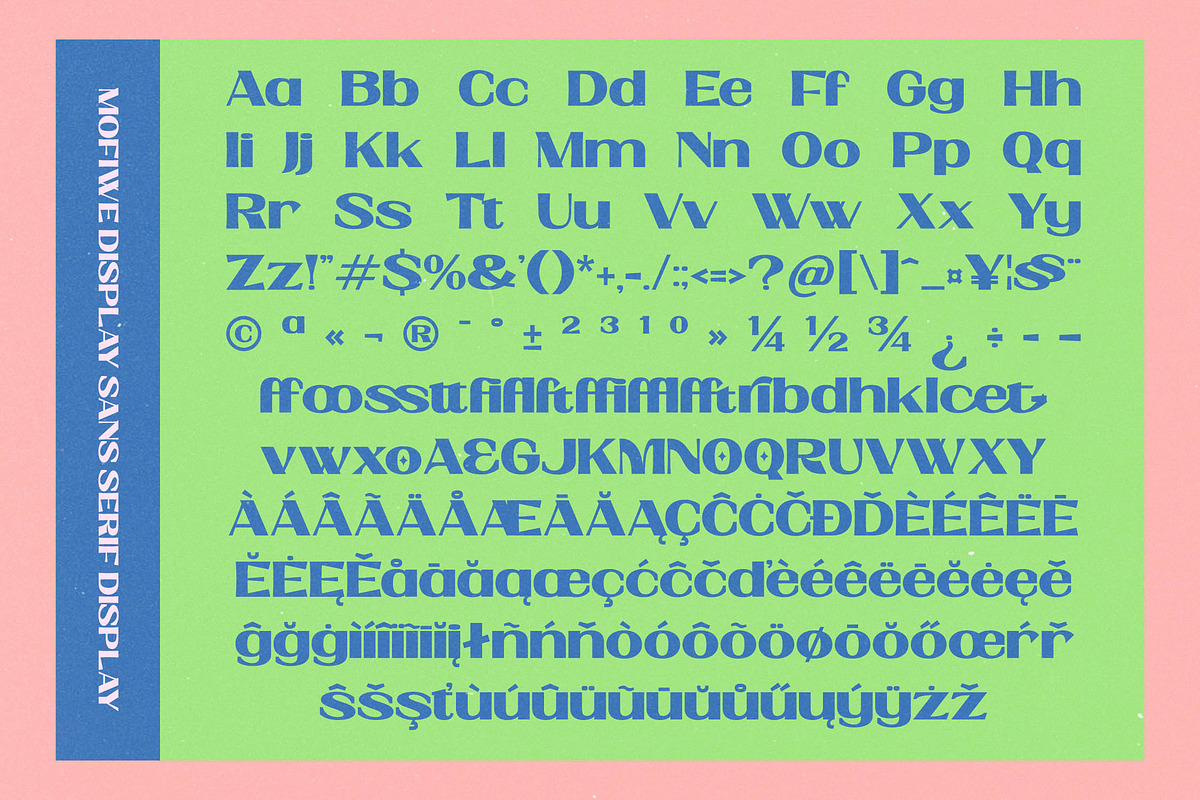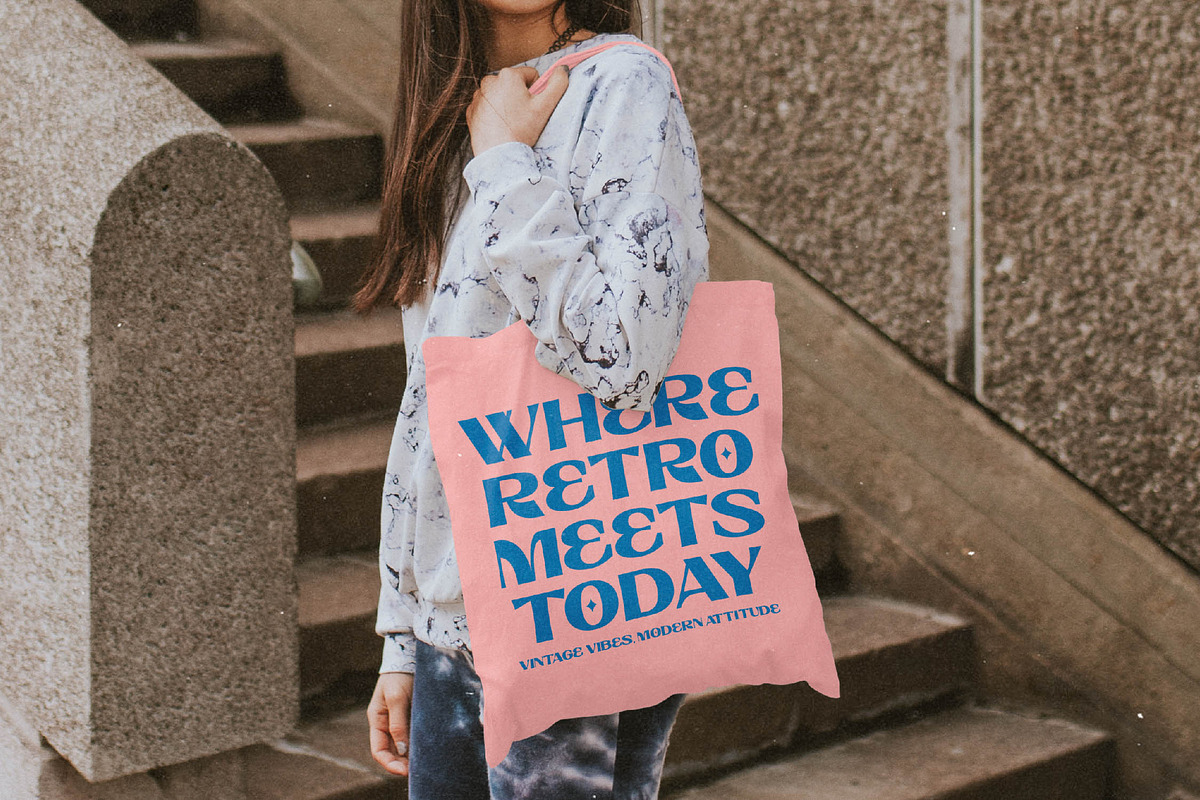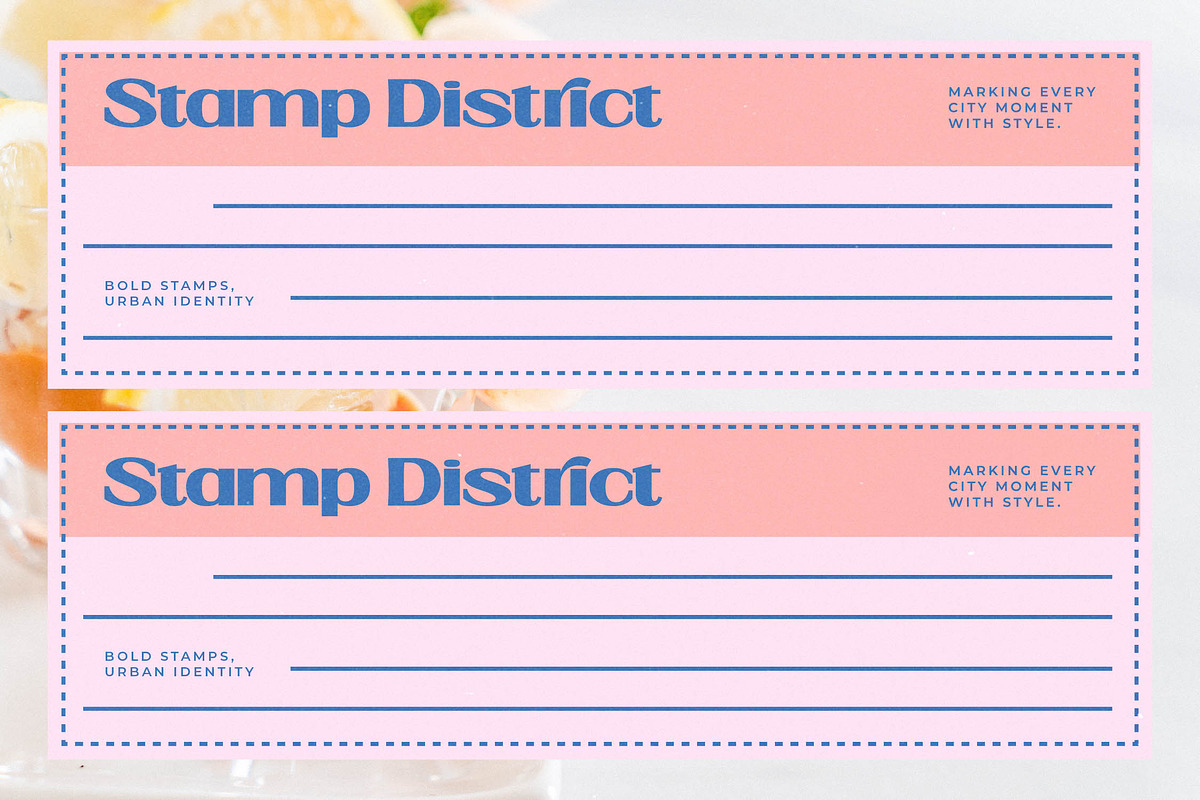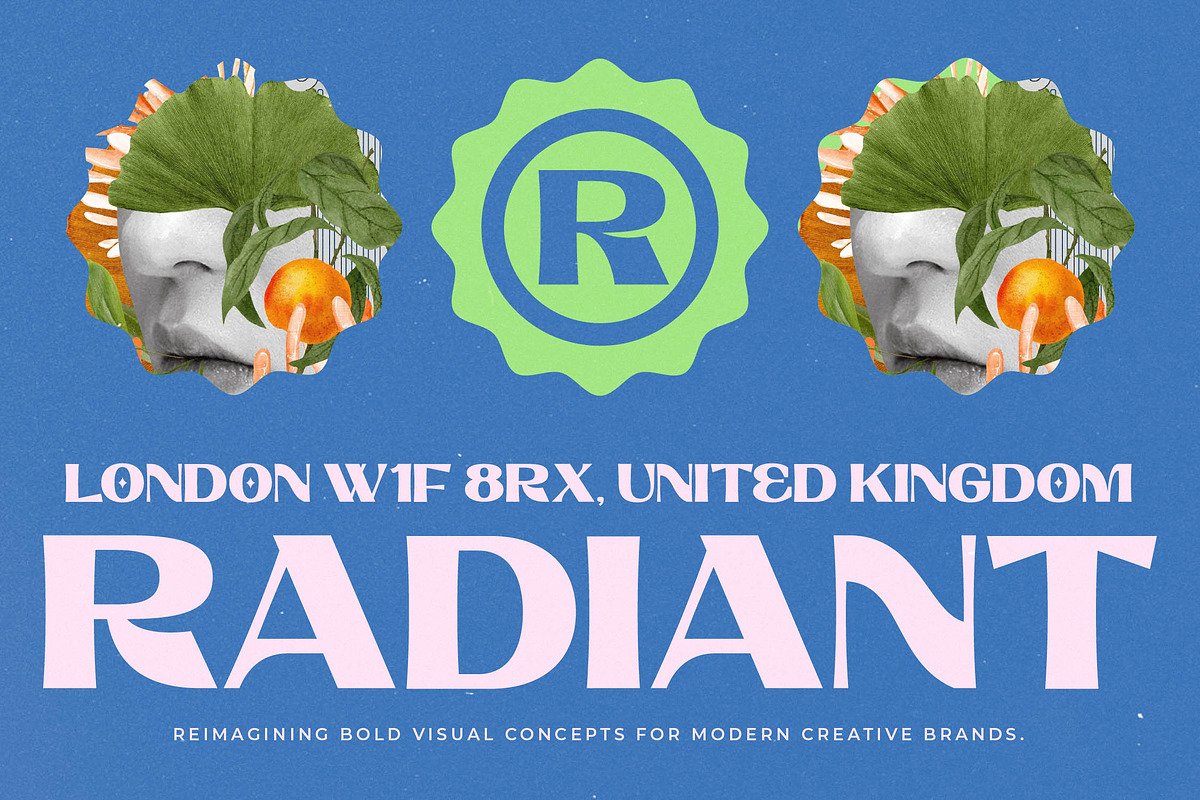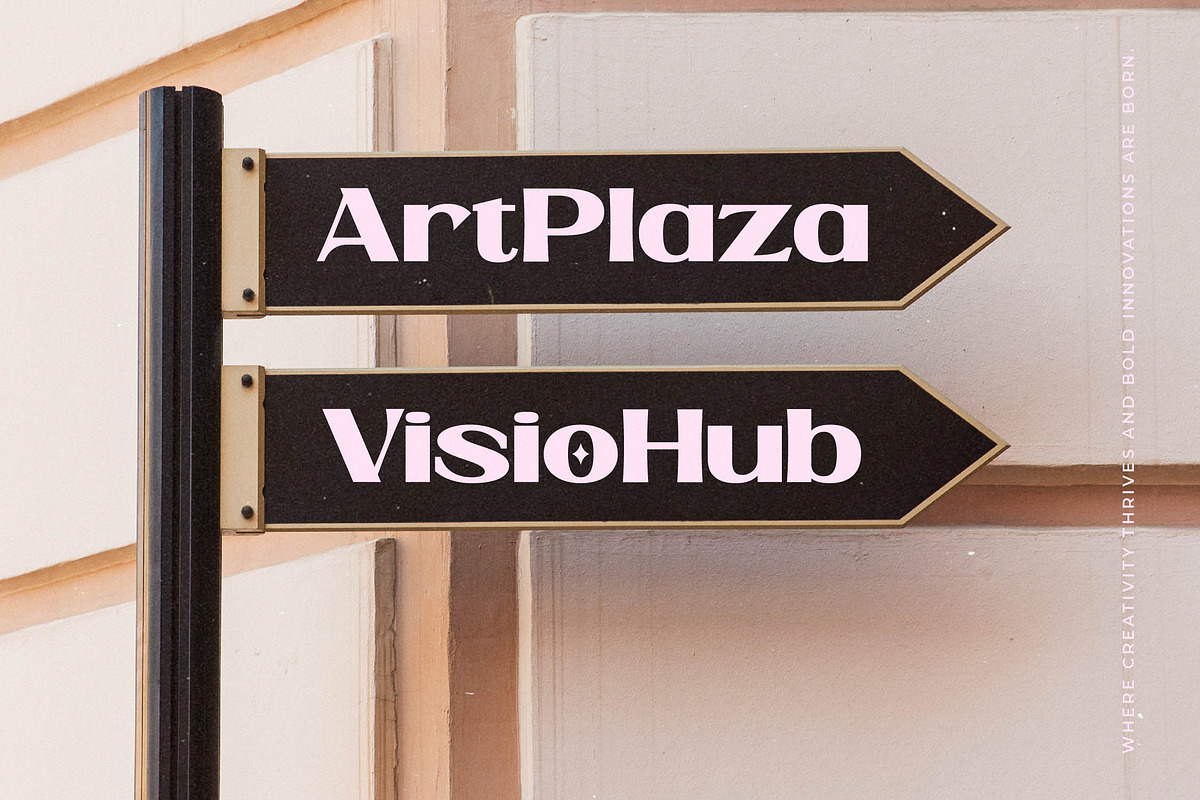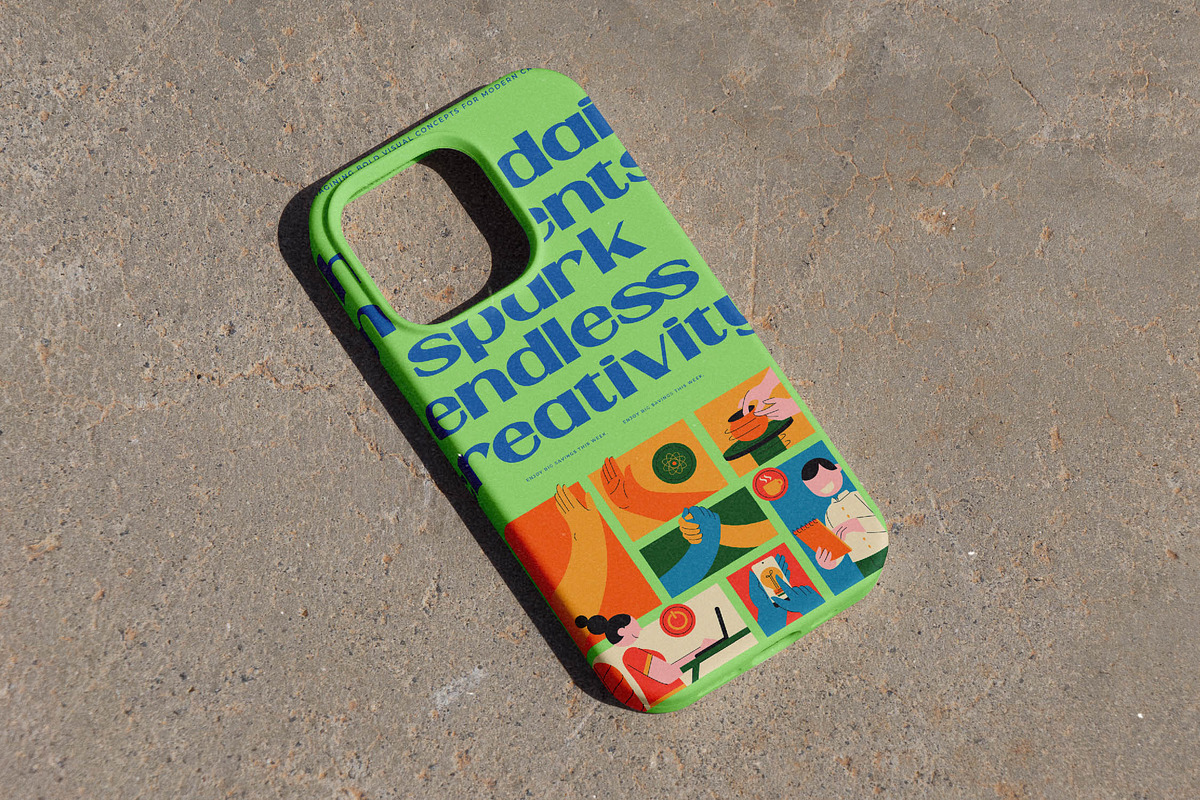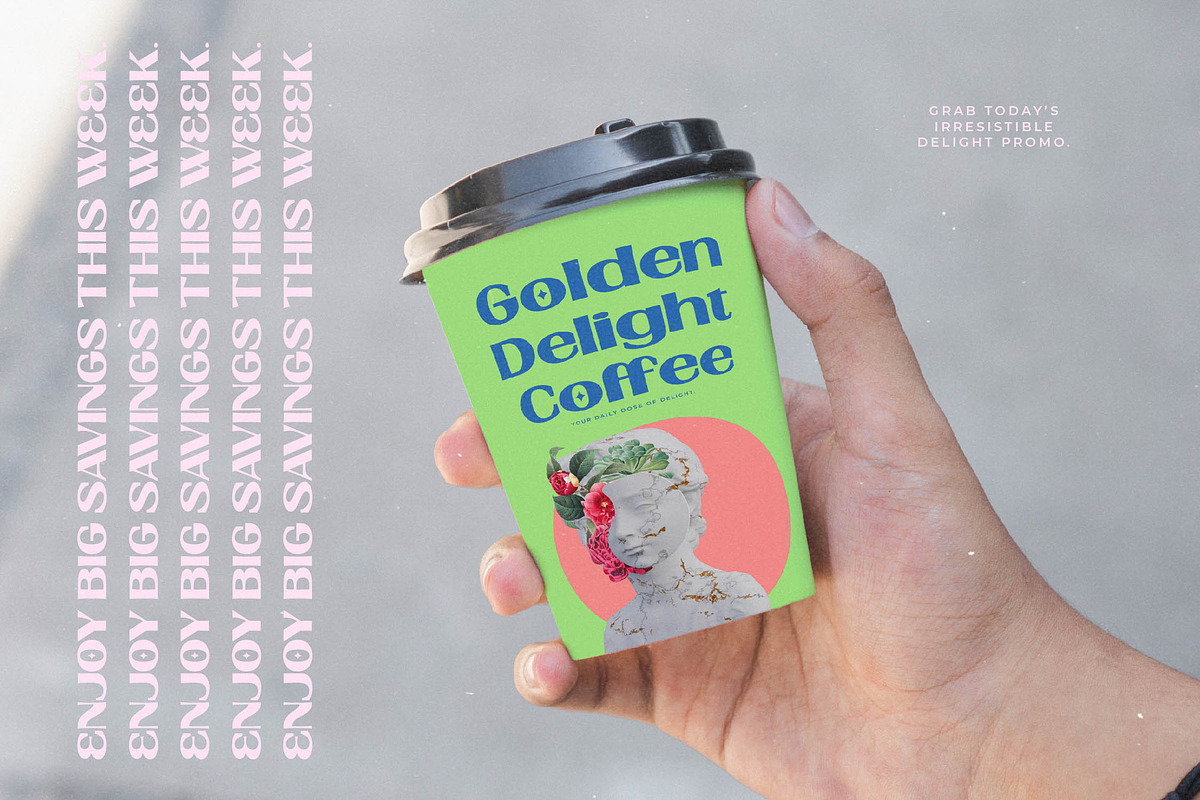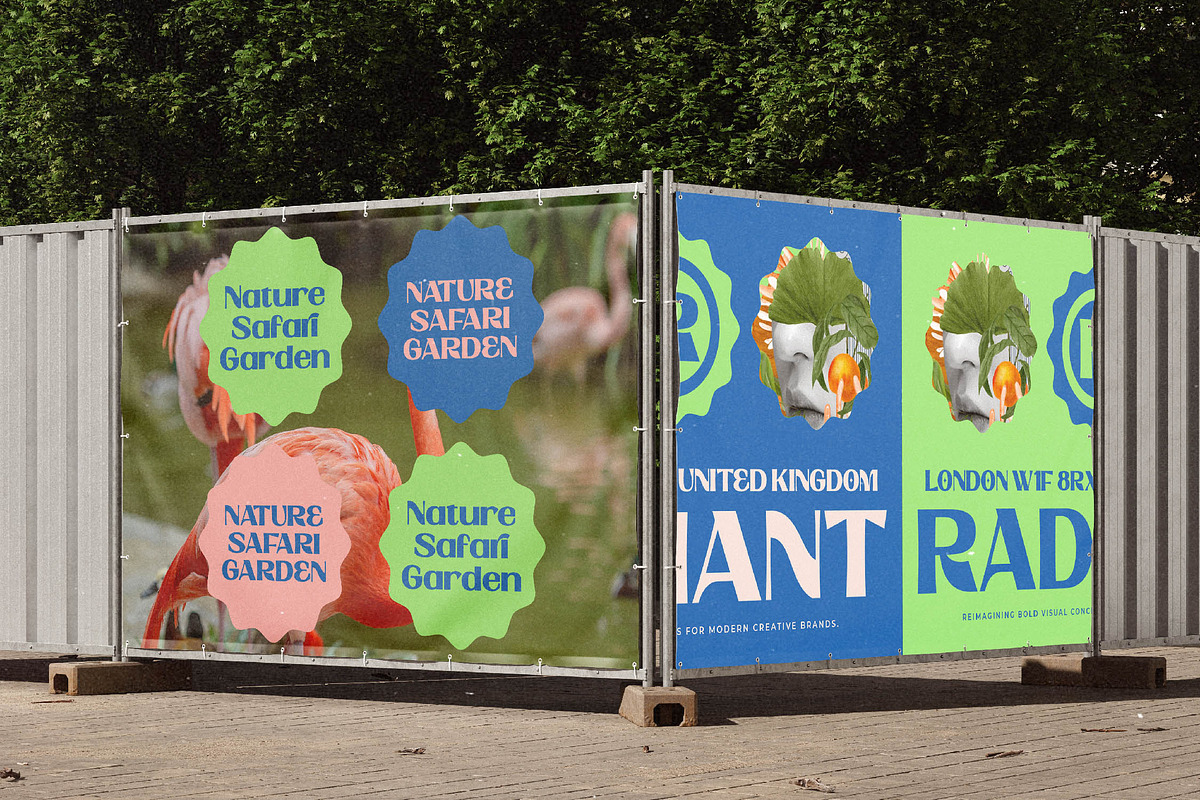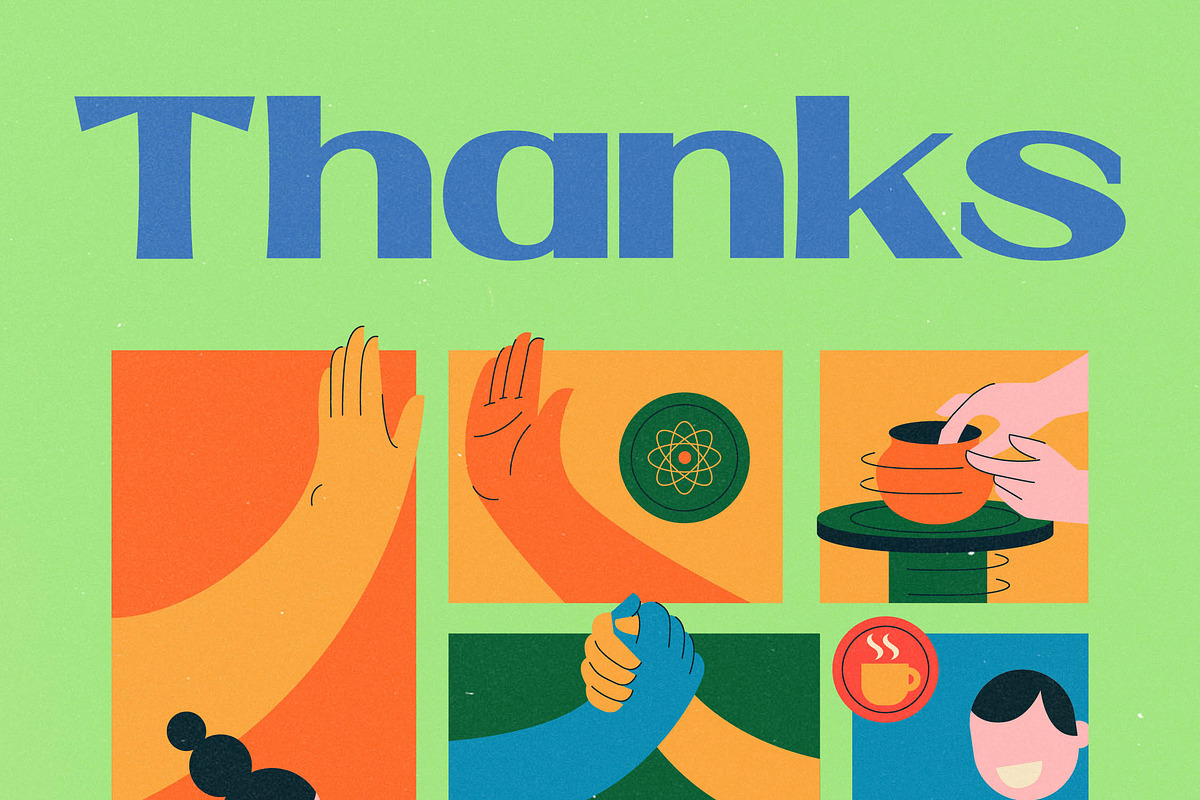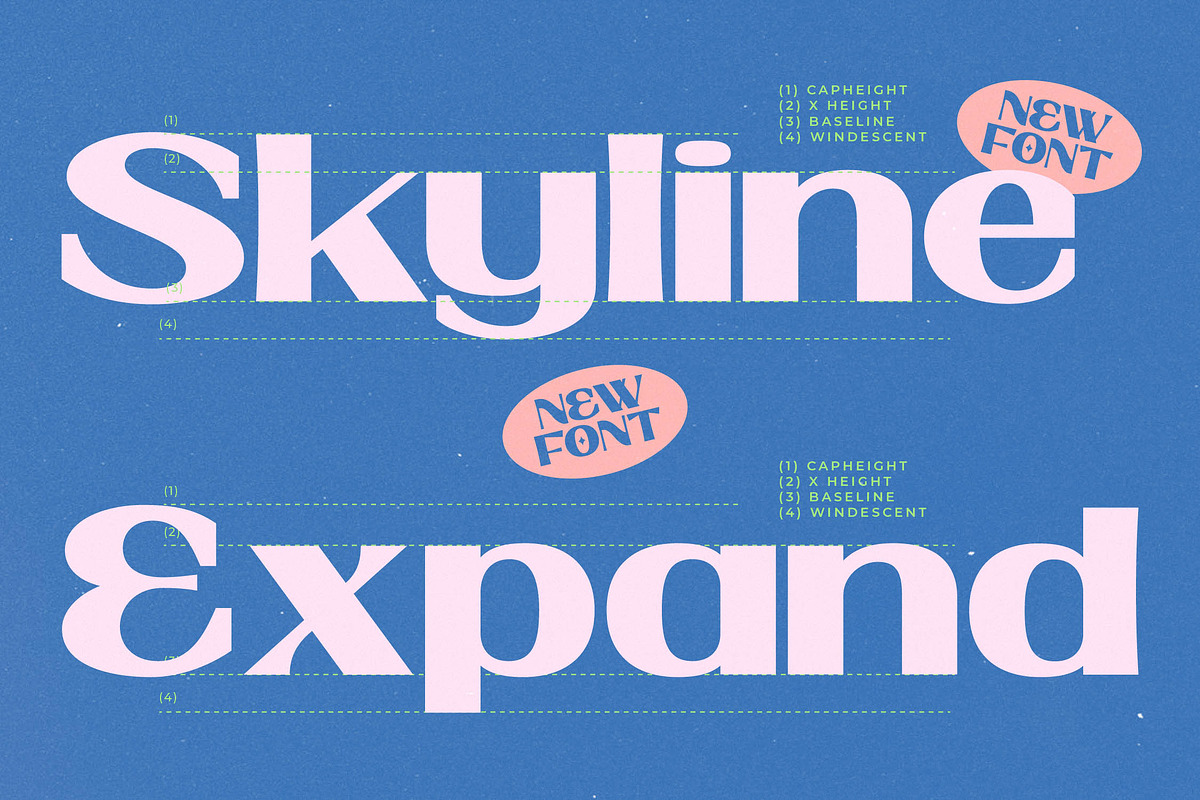
Mofiwe Modern Display Sans Font
Elevate your creative vision with the soul-stirring elegance of Mofiwe, a typeface designed to turn every word into a visual masterpiece. This font captures the perfect harmony between artistic expression and professional polish for any high-end project.
Inspired by the fluid strokes of vintage artistry and the structured beauty of modern architecture, this typeface breathes life into static layouts. It channels a sense of timeless craftsmanship, reminiscent of artisanal pottery and hand-painted stories that resonate with a human touch.
Mofiwe is a masterclass in modern serif display aesthetics reimagined as a sans, offering unparalleled luxury typography through its unique character shapes. Its high-contrast serif influences provide a commanding editorial font presence that ensures a massive branding impact across all media.
Perfectly aligned with the modern serif trend that favors high personality, this typeface leads the way in editorial display fonts. It is the ultimate choice for designers seeking character-driven typography that breaks away from generic geometric styles to find something truly unique.
This versatile family excels in logo design and comprehensive branding identity systems that require a sophisticated edge. From high-fashion editorial layouts to boutique packaging, and even elegant wedding invitations, it brings a sense of fashion and flair to every application.
The package is loaded with professional features including unique ligatures and creative alternates to customize your look. With full multilingual support and a wide range of international characters, it also includes decorative swashes to complete your design toolkit.